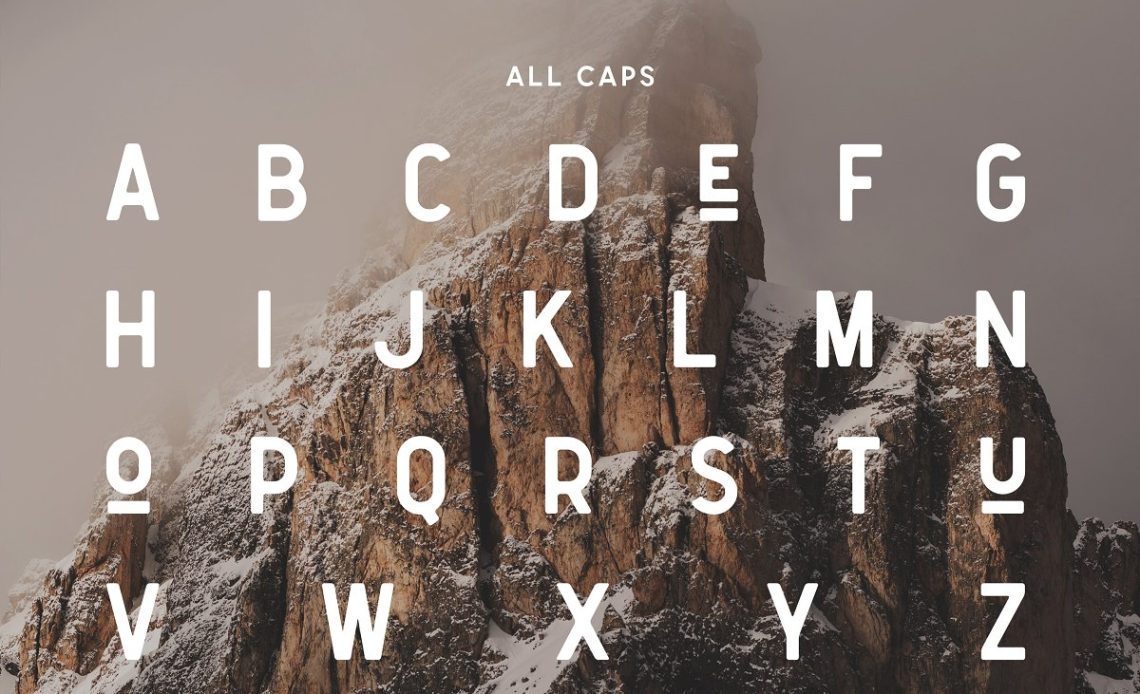
Introducing Caferio - The Florest Typeface, the best font for simple logos created by NEWFLIX Bro. This vintage sans serif font is perfect for anyone looking to elevate their designs with a touch of elegance and style. With its smooth edges and many beautiful alternate characters, this font is sure to make your design stand out.
Designed with stylistic alternates and contextual alternate in some characters, Caferio allows you to mix and match pairs of letters to fit your design needs perfectly. This font contains an uppercase alphabet with numbers and symbols, making it versatile for various projects such as quotes, blog headers, posters, weddings, branding, logos, fashion, apparel, letters, invitations, and stationery.
The Caferio font family comes in two styles: Regular & Outlined, giving you the flexibility to choose which one suits your project best. It also includes a character set A-Z with special uppercase letters, stylistic alternates, numerals, and punctuation. This font is available in OTF, TTF, and WOFF format, and supports multiple languages, so you can use it for any project, no matter where you are.
In summary, Caferio - The Florest Typeface is perfect for anyone looking for a clean, bold, and simple vintage sans serif font that adds elegance and style to their design. Download Caferio now and take your designs to the next level!